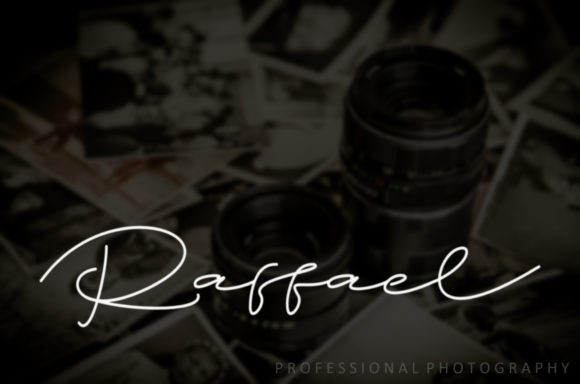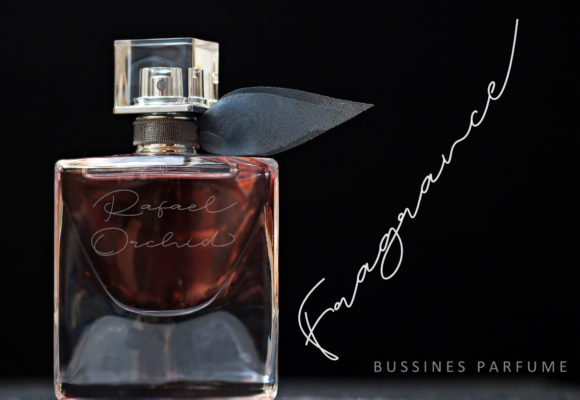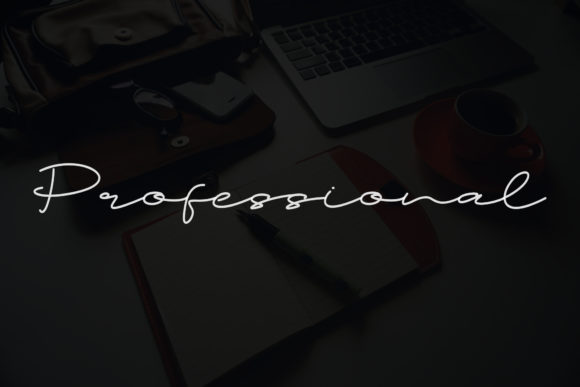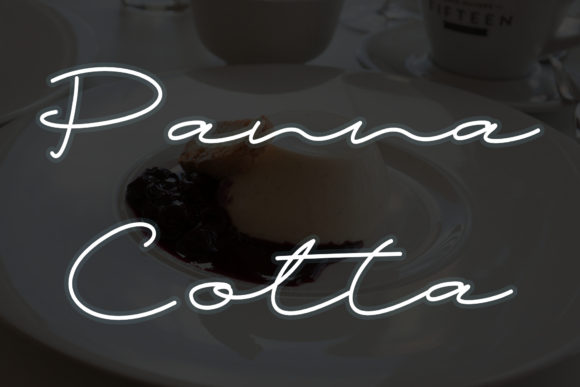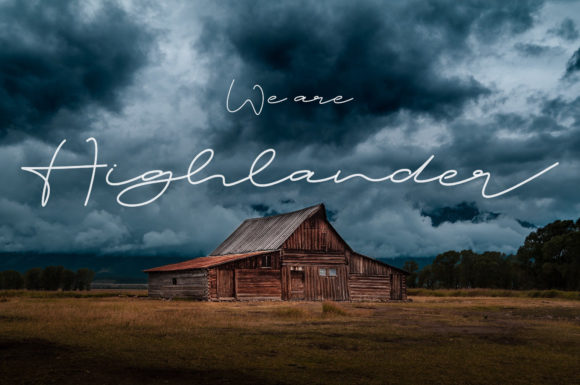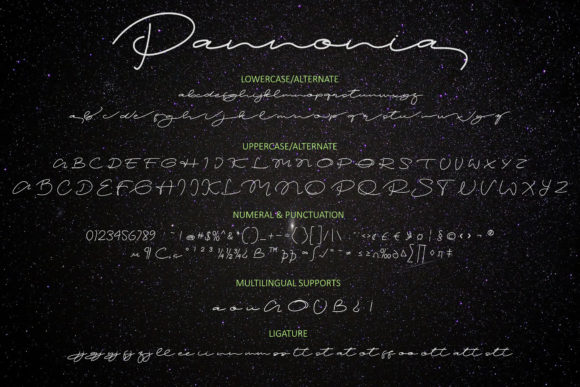
Pannonia Font
About Pannonia Font
Pannonia is a simple and minimal handwritten font. Fall in love with its incredibly versatile style and use it to create spectacular designs!